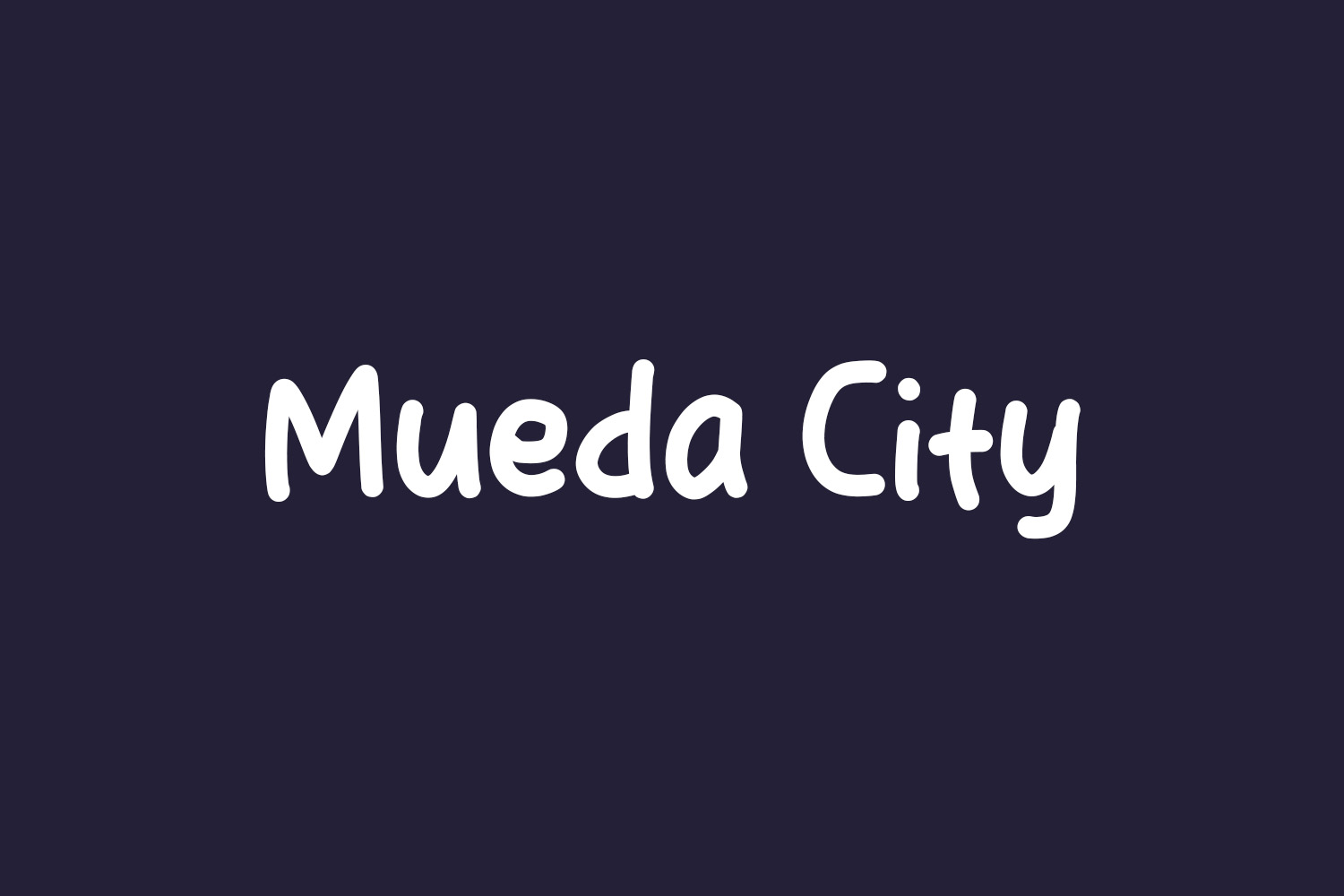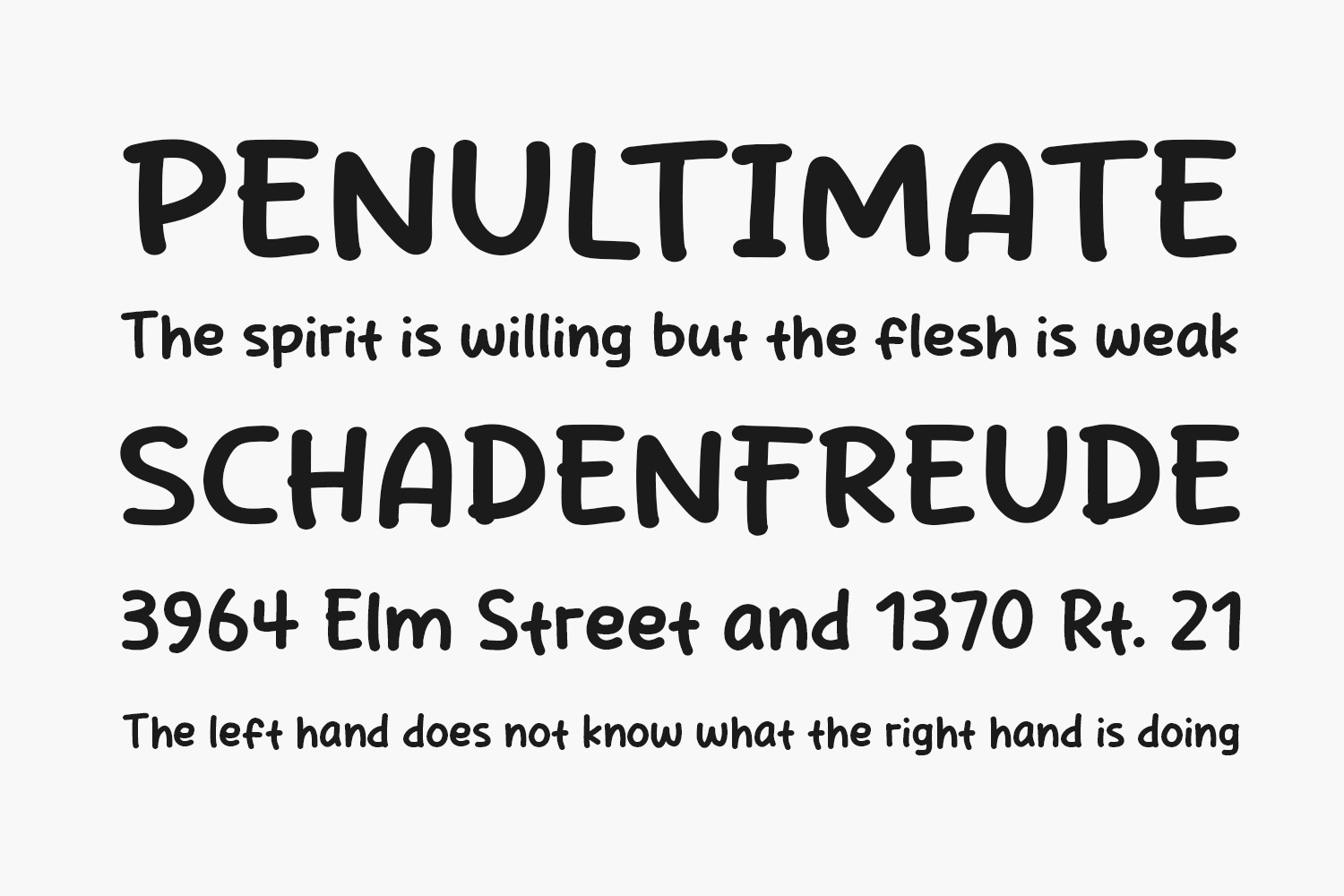
Mueda City Free Font, an attractive and contemporary display font, is an ideal choice for a wide range of design projects such as posters, logos, magazines, book covers, banners, and more. Discover this remarkable font and harness its potential to craft charming designs that seamlessly integrate with a diverse array of projects. Incorporate it into your creative concepts and witness the remarkable difference it can make in elevating your designs. Mueda City Free Font is free for personal or commercial use.